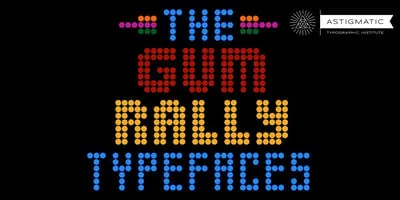
Gum Rally AOE Font
The Gum Rally AOE Font is perfect for retro-inspired design projects including vintage racing posters, automotive event flyers, classic car show materials, motorsport branding, nostalgic advertising campaigns, vintage-style logos, speedway signage, and throwback themed marketing materials. This distinctive typeface brings authentic racing heritage and vintage charm to any design project celebrating automotive culture and speed.
What makes Gum Rally AOE Font so exciting is its authentic vintage racing aesthetic that captures the golden era of motorsports with bold, dynamic letterforms. The font features classic racing-inspired details with strong, confident strokes that evoke the excitement and adrenaline of competitive racing. This distinctive character makes it perfect for brands and projects that want to communicate speed, heritage, and the timeless appeal of vintage automotive culture.
The Gum Rally AOE Font family typically includes regular and bold weights, often with additional decorative elements and racing-themed symbols. Many versions feature vintage-style numerals, special automotive glyphs, and stylistic alternates that enhance its authenticity for motorsport and racing applications.
Whether you're designing for automotive businesses, racing events, or vintage-themed projects, Gum Rally AOE Font offers the perfect solution for designs that need to capture the spirit of classic racing culture. This font transforms ordinary text into powerful racing-inspired designs that immediately communicate speed, heritage, and authentic motorsport passion to your target audience.